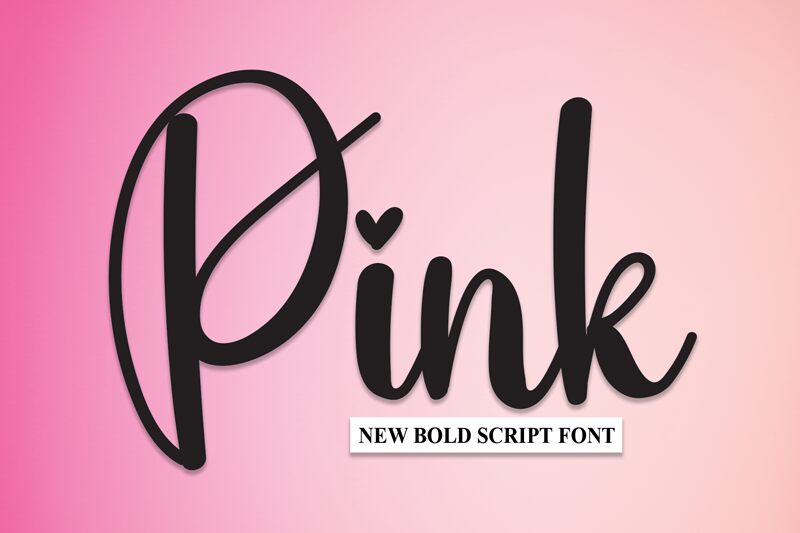
Pink
Pink, a semi-light calligraphy font crafted by Scratchones, offers a blend of contemporary flair and timeless elegance. Its fluid, sweeping strokes convey a sense of personal touch and sophistication that is rare in digital typefaces. The delicate balance between the playful loops and the poised structure gives Pink its unique aesthetic, making it an excellent choice for designs that require a hint of intimacy without sacrificing professionalism.
The versatility of Pink lies in its ability to merge seamlessly into various creative projects. From upscale branding materials to heartfelt wedding invitations, this font is both inviting and versatile. Its semi-light weight ensures legibility while maintaining an airiness that enhances the overall design without overpowering it.
With Pink, designers can create compositions that speak volumes through understated grace—a perfect fit for those looking to inject warmth and character into their work while maintaining an exquisite style.
The versatility of Pink lies in its ability to merge seamlessly into various creative projects. From upscale branding materials to heartfelt wedding invitations, this font is both inviting and versatile. Its semi-light weight ensures legibility while maintaining an airiness that enhances the overall design without overpowering it.
With Pink, designers can create compositions that speak volumes through understated grace—a perfect fit for those looking to inject warmth and character into their work while maintaining an exquisite style.